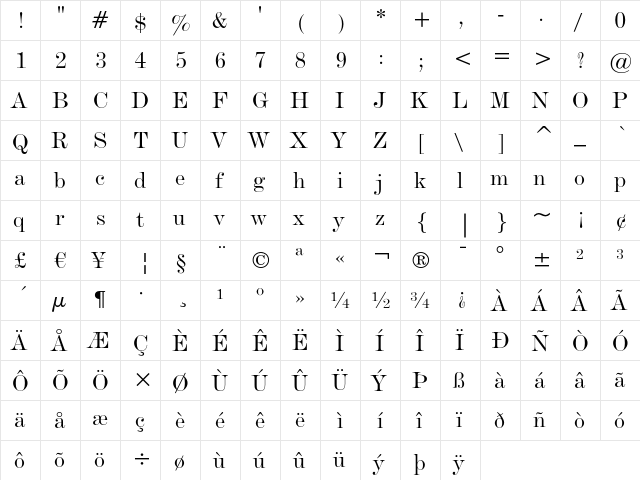
De Vinne Regular
Design Context for De Vinne Typeface
De Vinne takes a measured approach to typography — its balanced proportions and neutral character make it a reliable workhorse for both digital and print work.